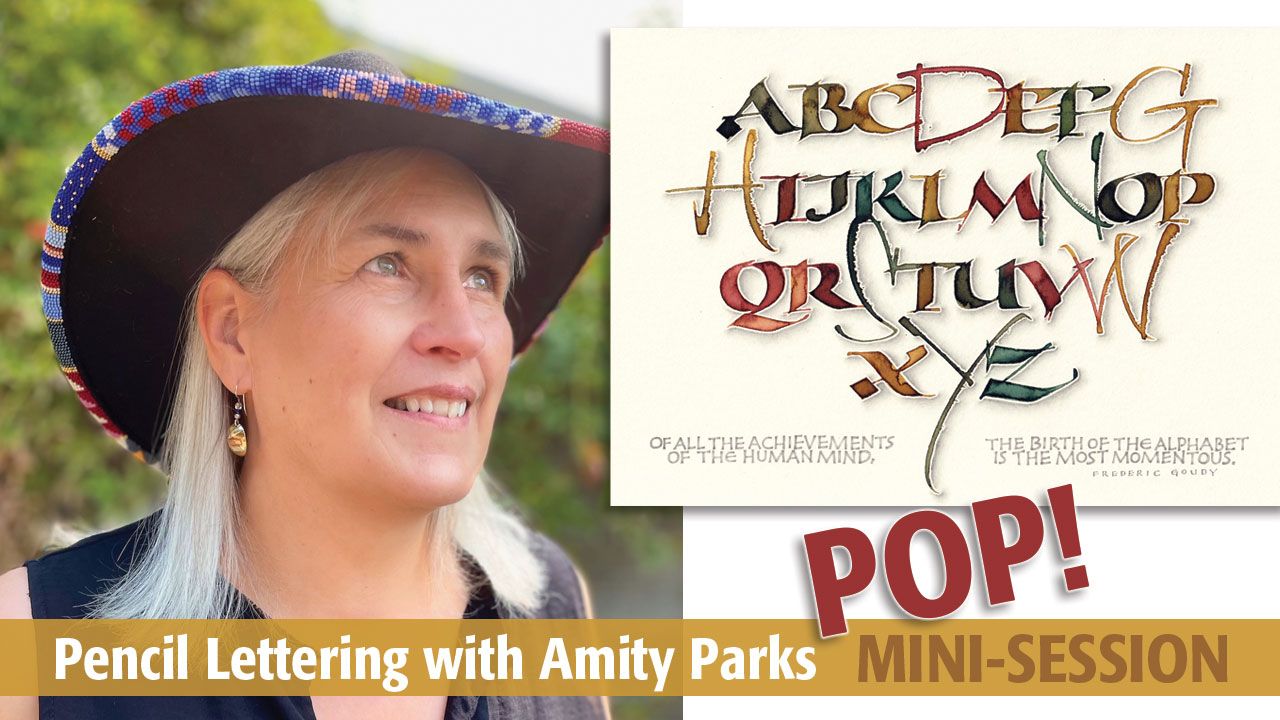
Make your calligraphic letters POP! with
Amity Parks
A pencil shadowing demo and draw along—adding depth to your lettering with pencil-drawn shadows.
In this mini-session, we will use pencils to add drop shadows to our [existing] lettering. This technique creates a subtle depth in your composition and makes the letters 'Pop' off the page. We'll discuss how to decide where the shadow goes, and pencil techniques to make it look smooth and effective.